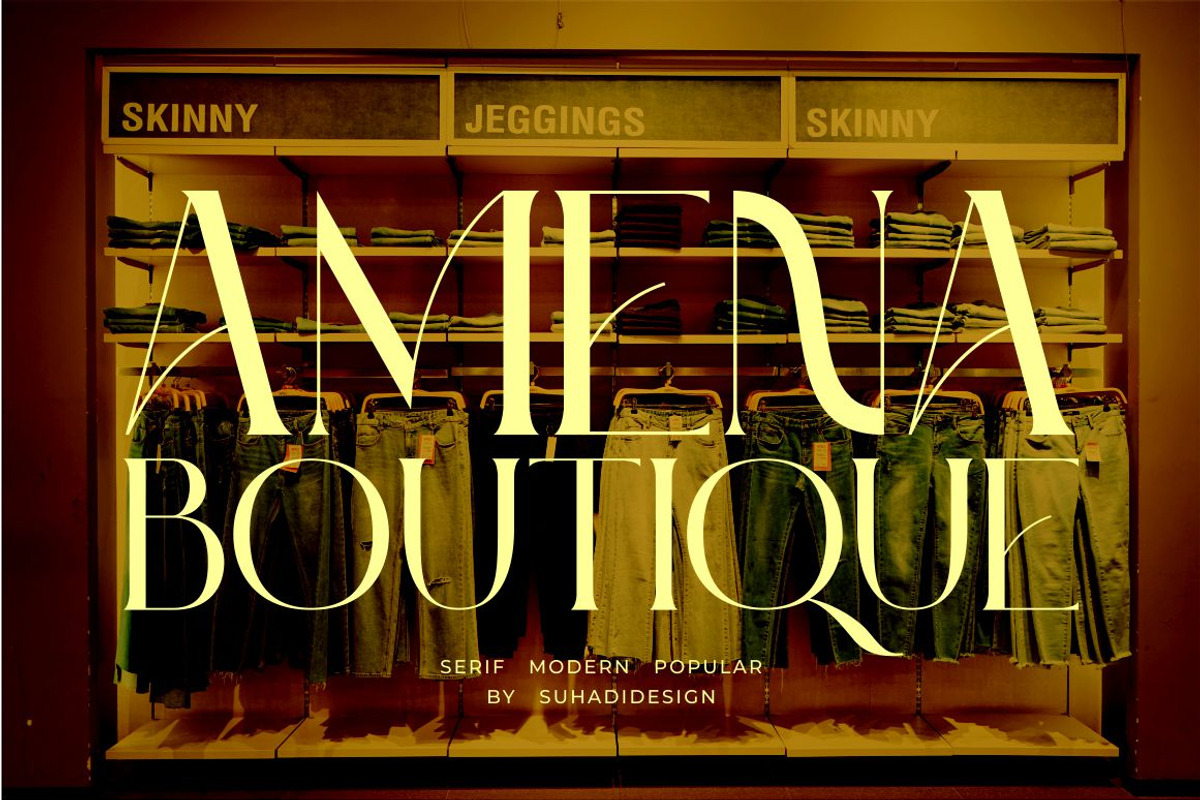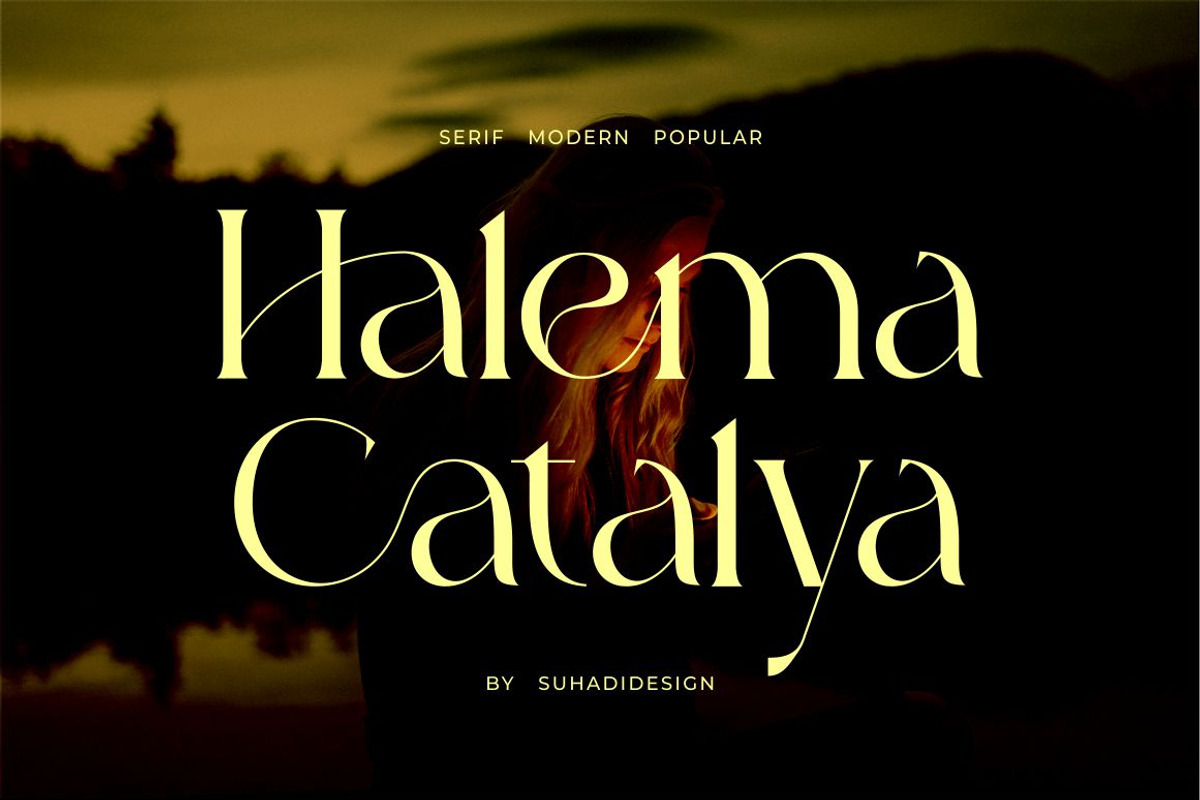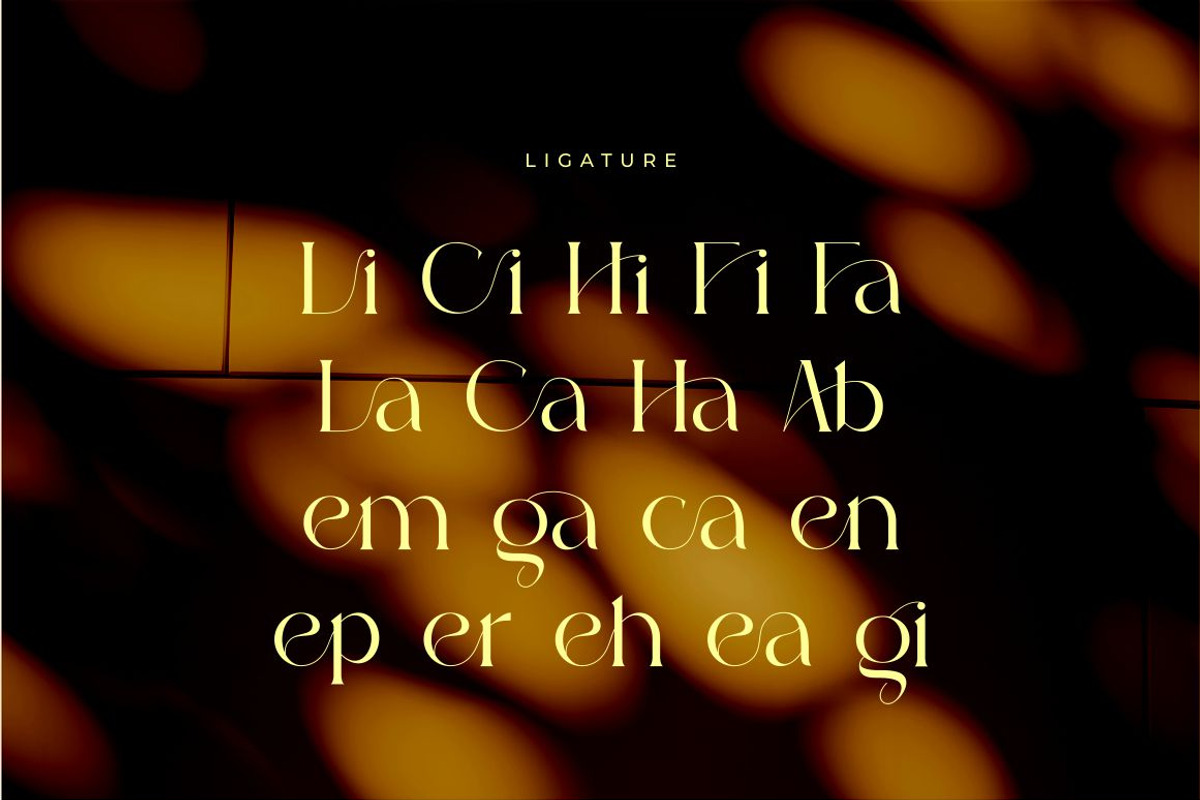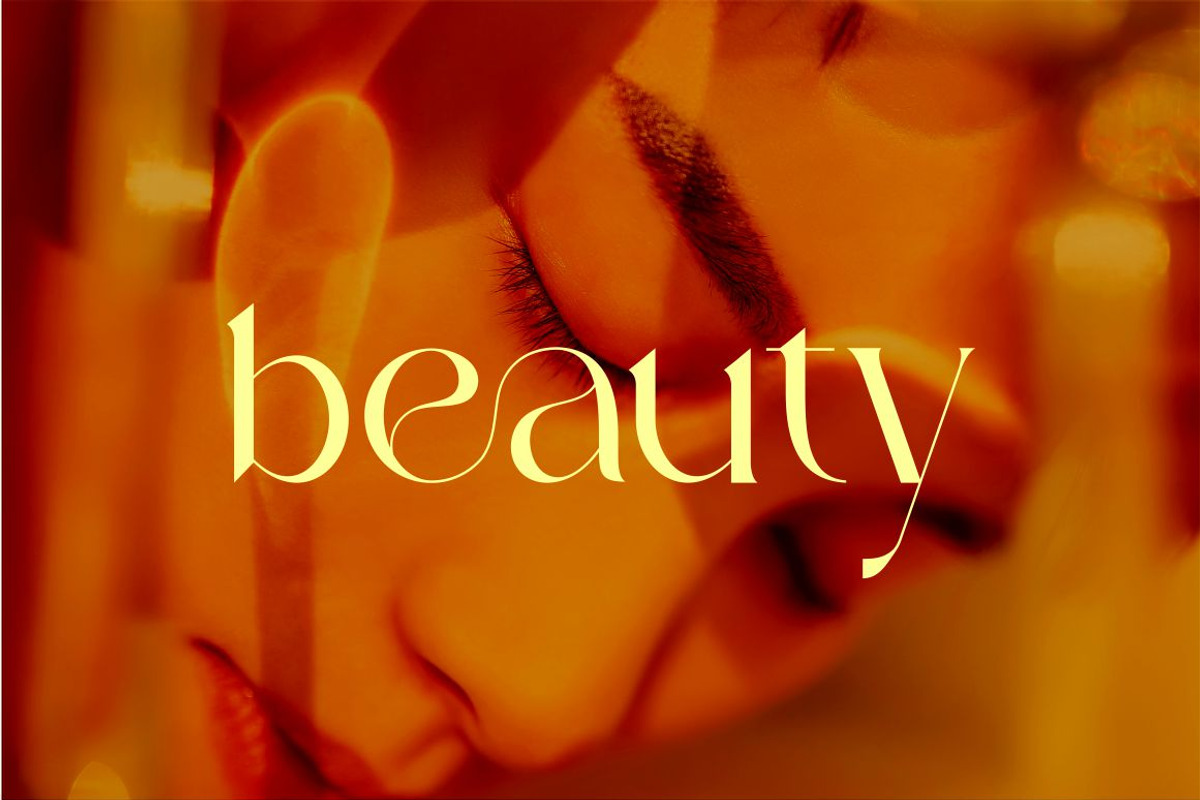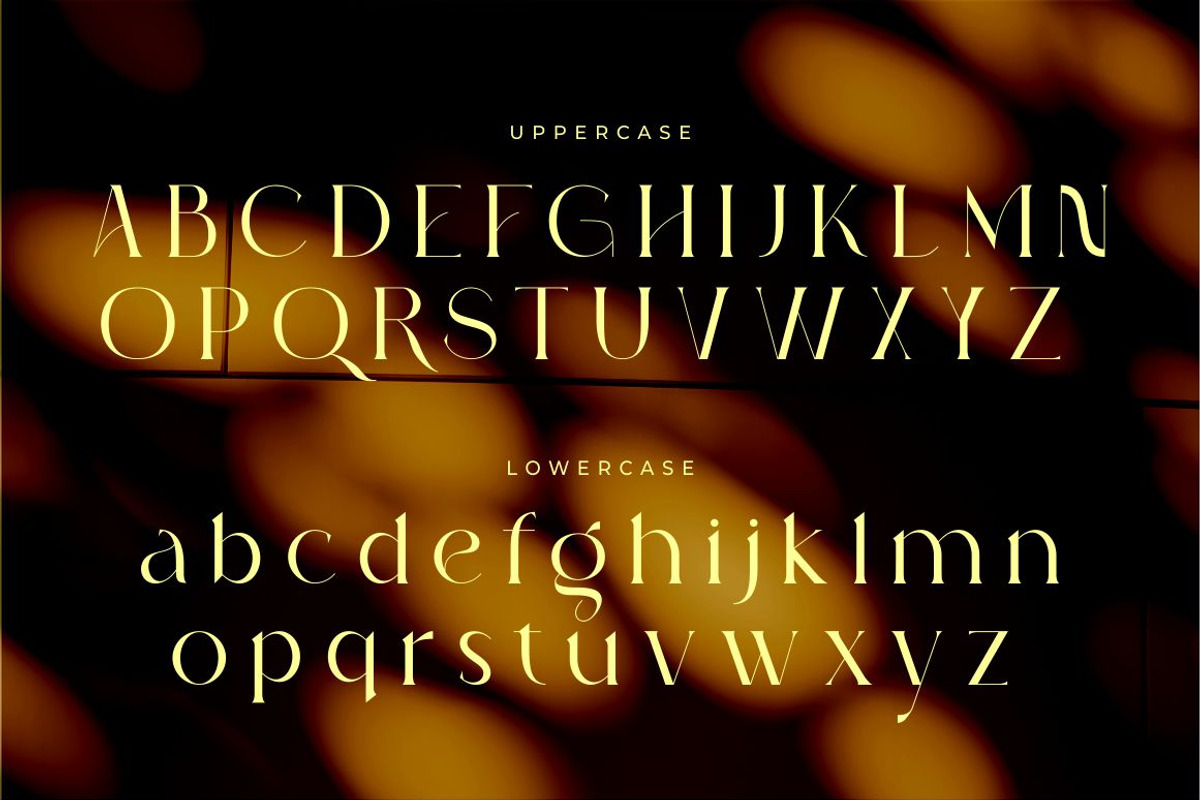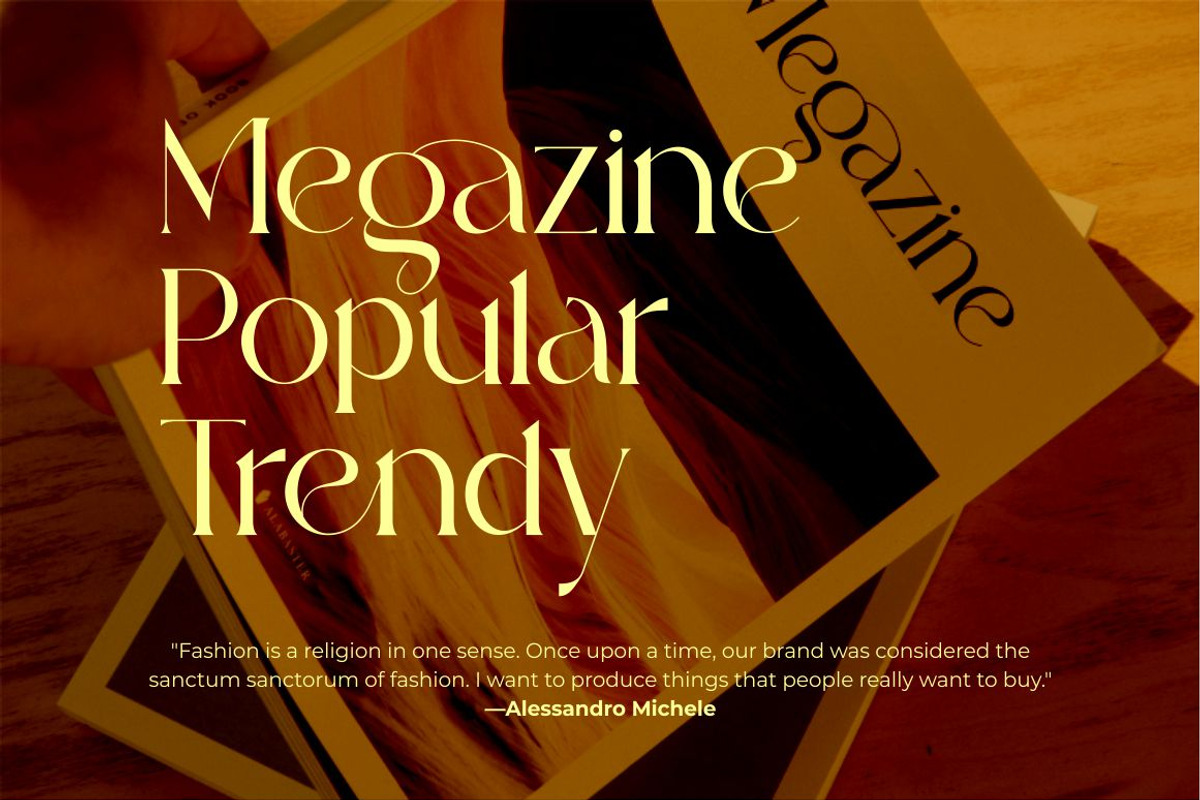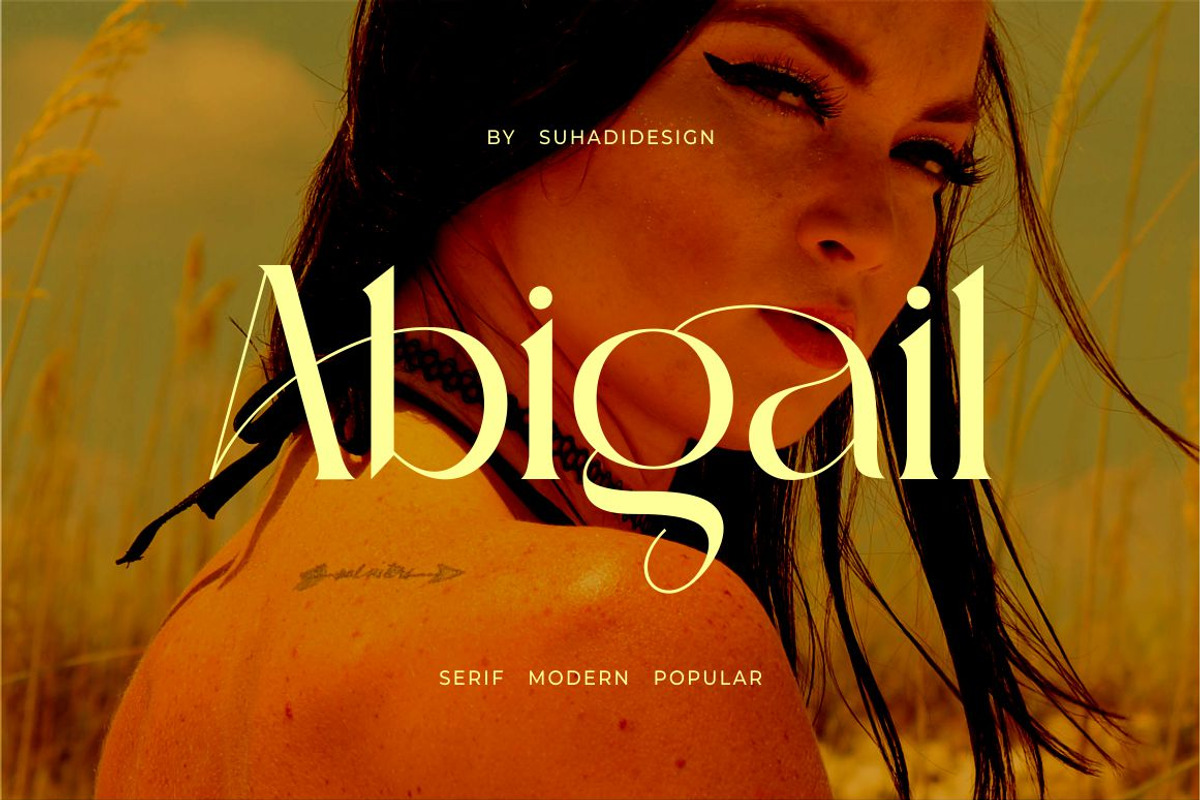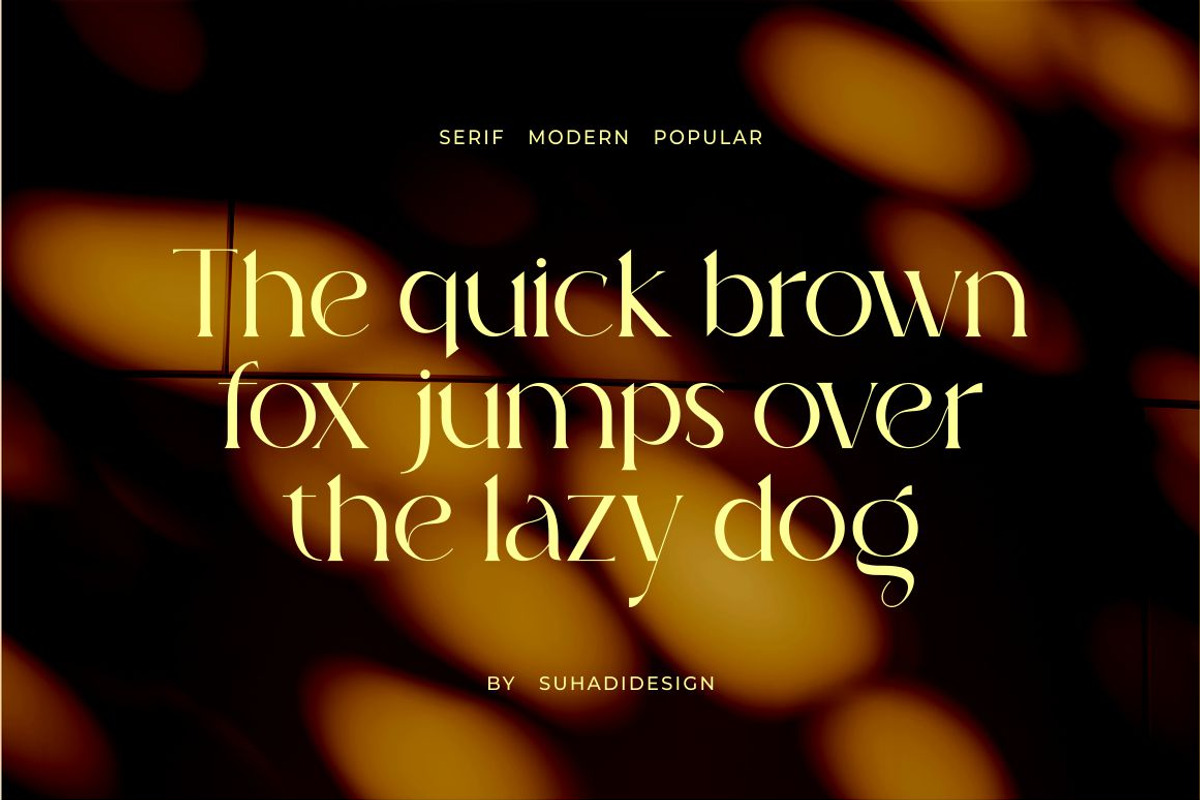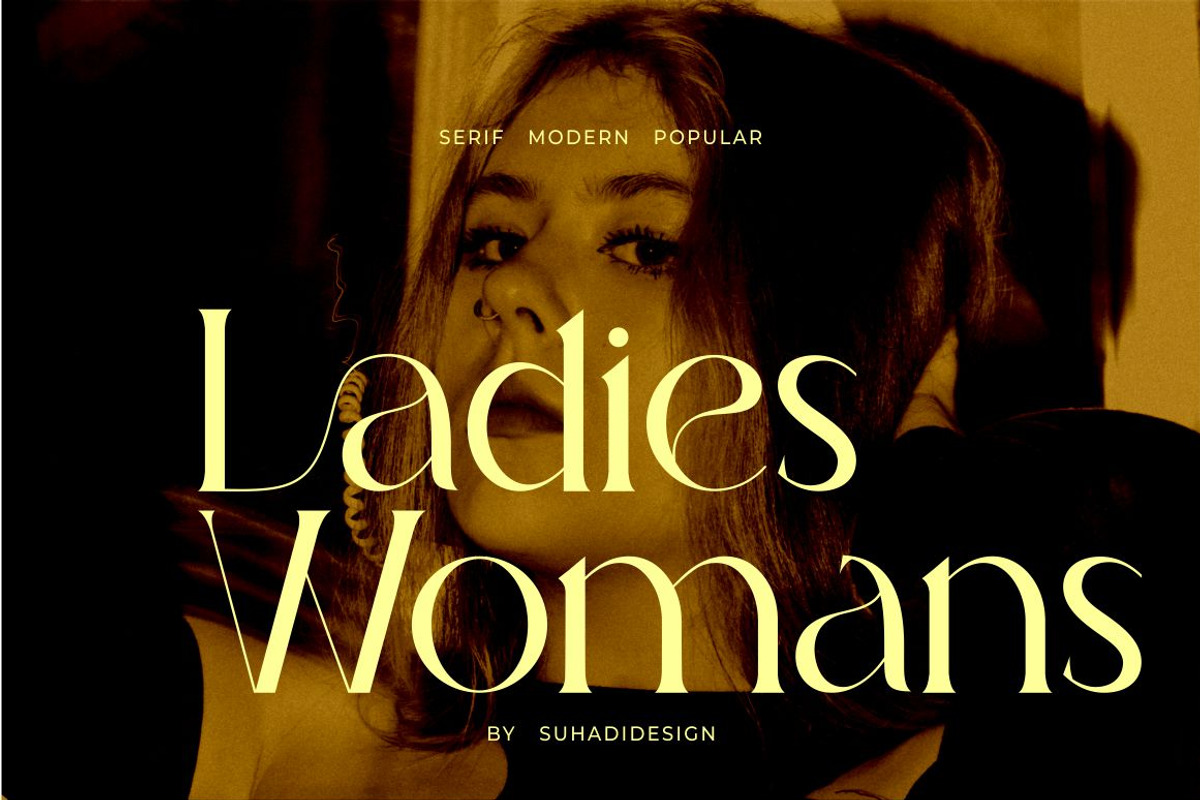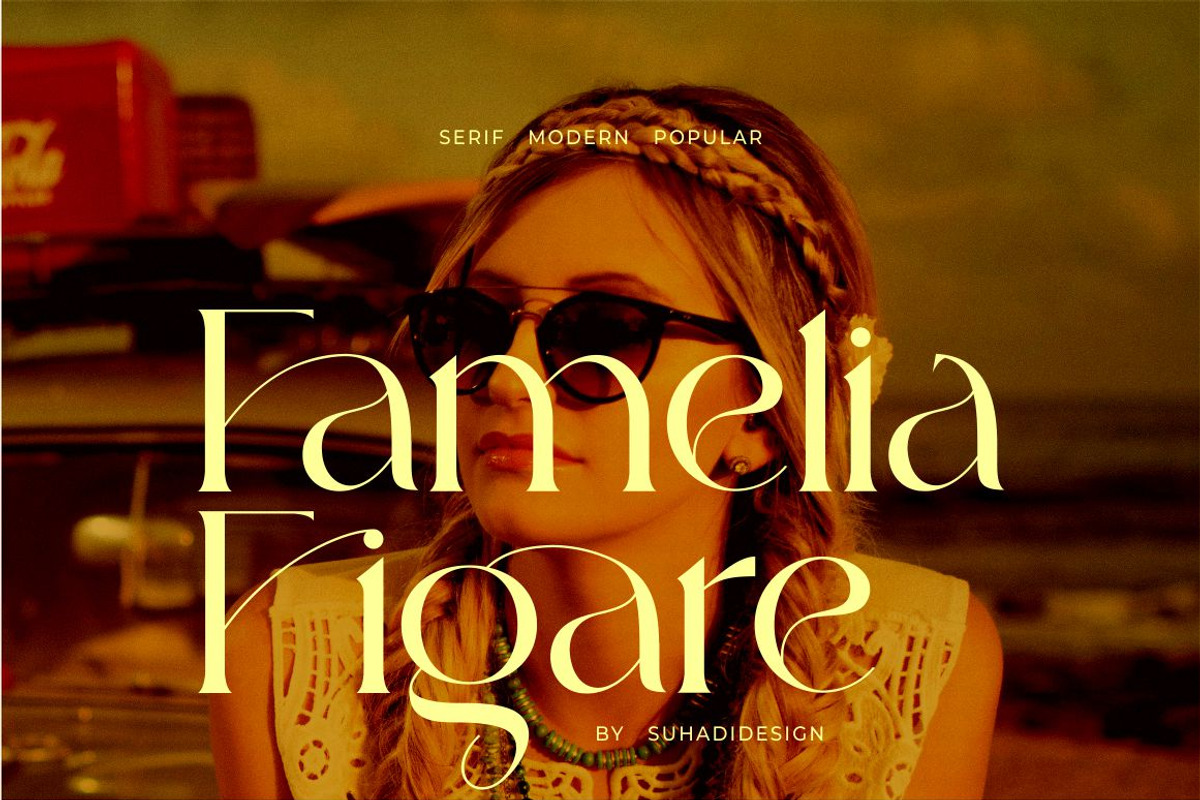
Abigail - Popular Classy Modern Serif
Hi ladies and gentlemen! The latest stylish modern font has arrived which is a font that many ladies and gentlemen are looking at. Namely the Abigail font. The Abigail font is a Classy and Alluring serif font. With an elegant model with a stylish fastener, it has become a market favorite. We keep this font looking elegant, classy, stylish. Abigail Font is a great choice for boutique, beauty, brands, cosmetics, magazines, design, books, publications, branding, brand names, business cards, social media, classy design, newspaper, branding, beauty and other projects. Abigail Font is here to improve the quality of your designs.
Feature:
• Upper case • Lower case • Ligature • Multilingual Support • Numerical • Punctuation